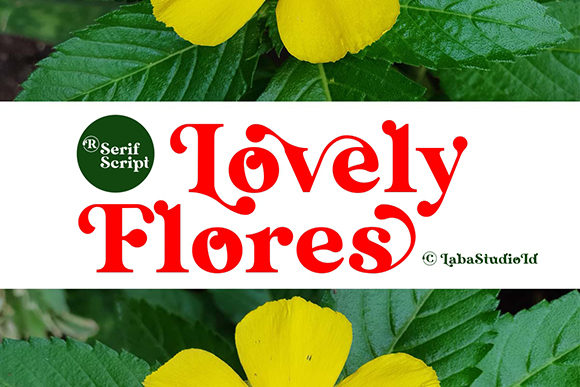
Immerse yourself in the world of grace and sophistication with Lovely Flores Font, a serif masterpiece crafted to elevate your designs to unparalleled heights. Its delicate strokes and elegant curves exude a timeless charm, adding an aura of refinement to every letterform. Whether you're a seasoned designer or just starting your creative journey, Lovely Flores Font is your gateway to creating designs that captivate and inspire.
Step into a realm where typography meets artistry, where each character is a testament to the beauty of handwritten elegance. Lovely Flores Font is a symphony of flowing lines and graceful serifs, offering a delightful contrast between delicate femininity and unwavering strength. Its balanced and varied structure ensures effortless readability, making it the perfect choice for any project that demands attention.
Unleash your creativity and let Lovely Flores Font transport you to a world of endless possibilities. This versatile font family effortlessly adapts to a wide range of design applications, from small packaging designs that demand precision to captivating logos that leave a lasting impression. Its versatility extends to both digital and print media, making it a true all-rounder in the world of typography.
With Lovely Flores Font, you'll discover a treasure trove of design opportunities. Its delicate strokes add a touch of whimsy to wedding invitations, while its classic appeal lends a touch of timeless elegance to branding materials. From social media posts that demand attention to captivating posters that draw the eye, Lovely Flores Font is your secret weapon for creating designs that resonate with your audience.
Embrace the power of Lovely Flores Font and unlock your creative potential. Its enchanting beauty will transform your designs into works of art, leaving an indelible mark on the hearts of your audience. Let Lovely Flores Font be your guide on this extraordinary journey of visual storytelling, where every project becomes a testament to your artistry.